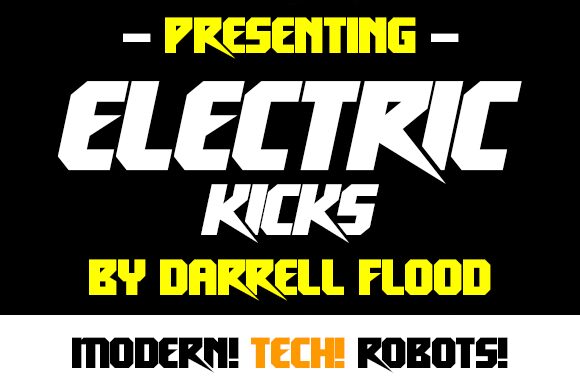
electrIc kIckS Italic
Introducing electrIc kIckS Italic, a bold futuristic display font designed by Darrell Flood. Perfect for creating impactful logos, titles and posters with its eye-catching letterforms. Add a modern twist to your projects with electrIc kIckS Italic!